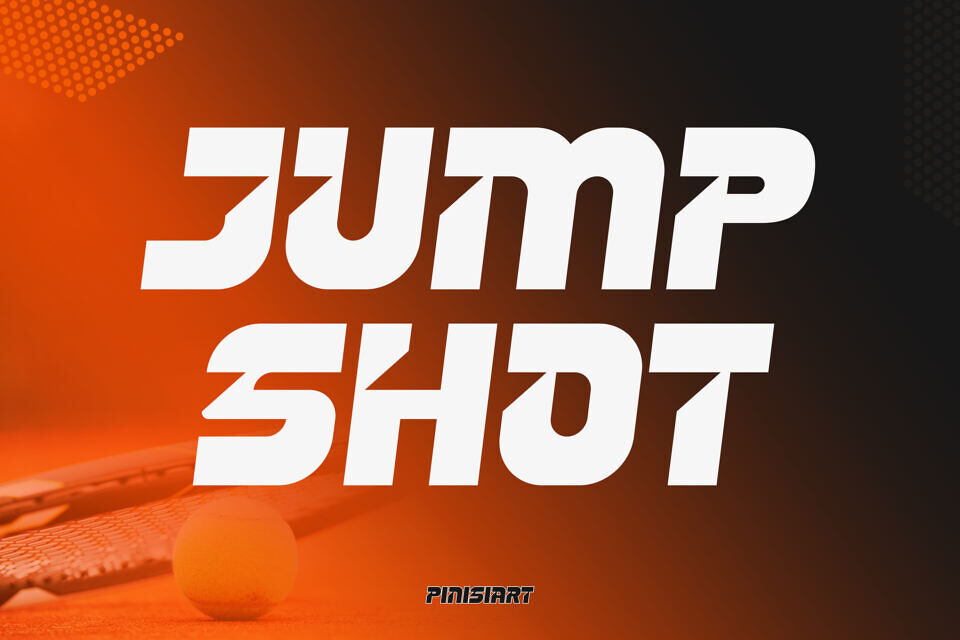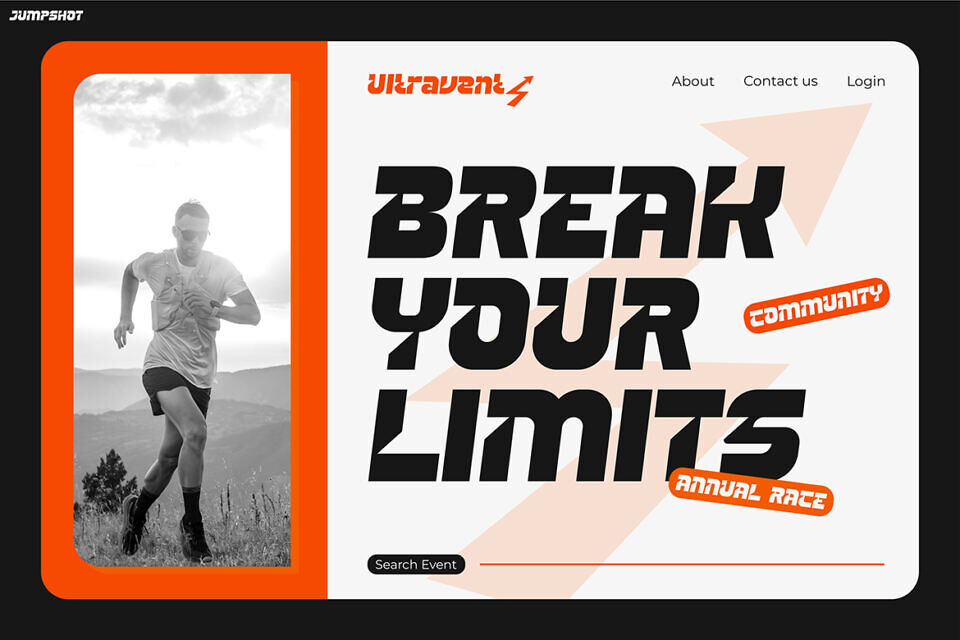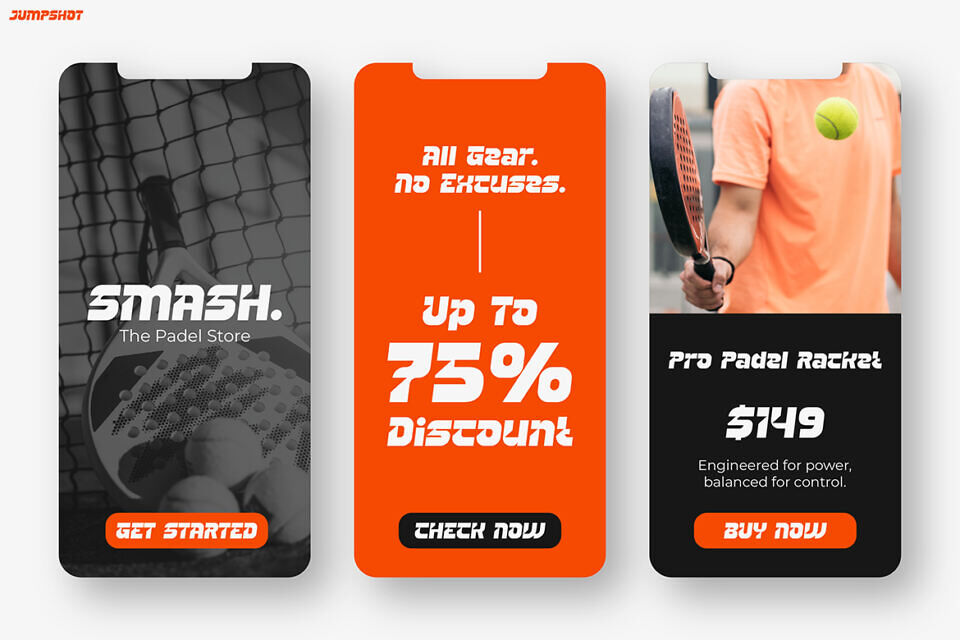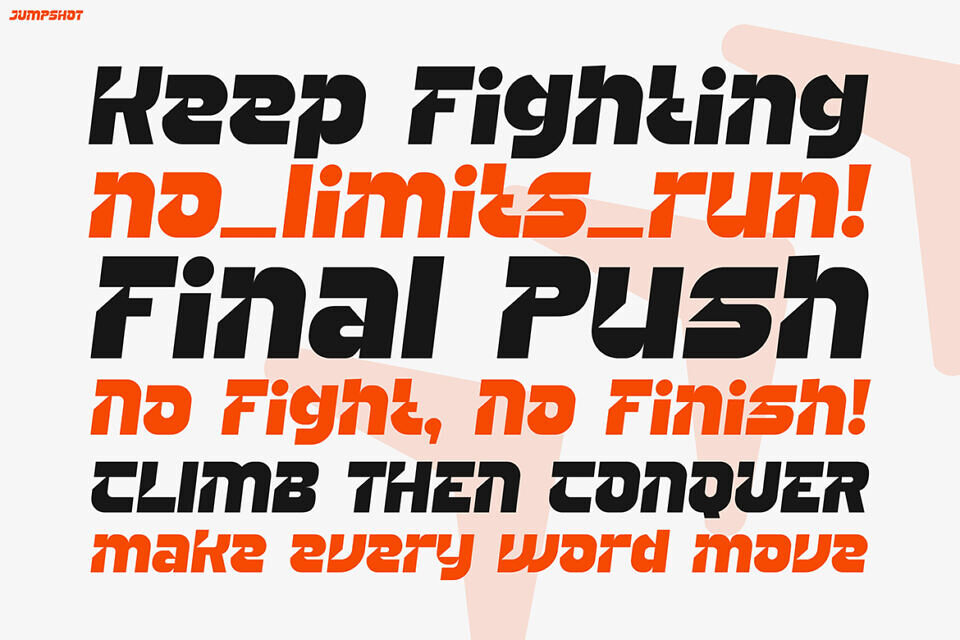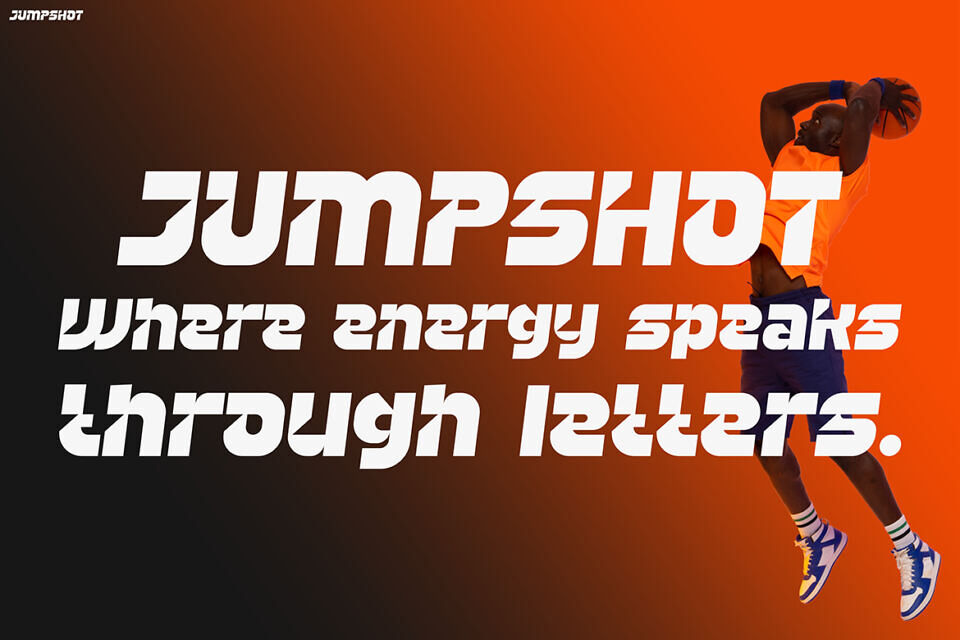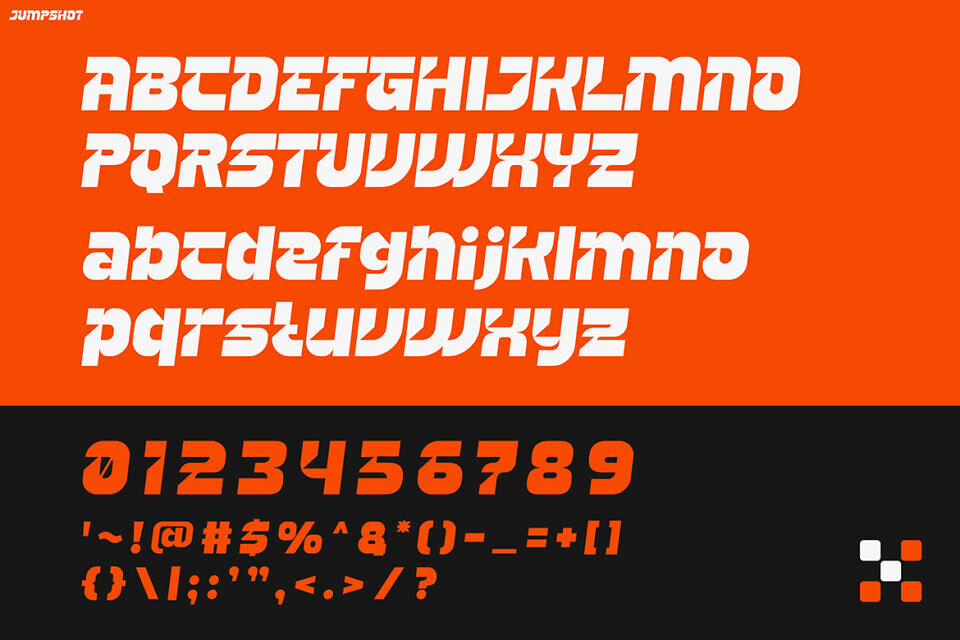
Sport Font JUMPSHOT combines power, motion, and style with bold geometric curves and a futuristic design, perfect for athletic-themed projects. It commands attention while ensuring readability across digital and print formats.
Ideal for sports branding, event promotion, and fitness marketing, JUMPSHOT delivers a dynamic, action-packed vibe that energizes any message. Designers, marketers, and fitness creators use it for marathon posters, sportswear packaging, gym promotions, and personal branding to make their visuals stand out with modern flair and impact.